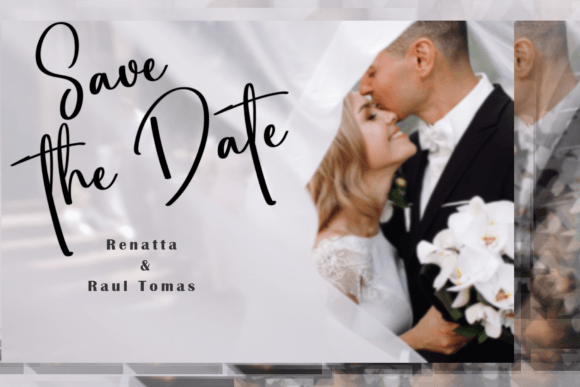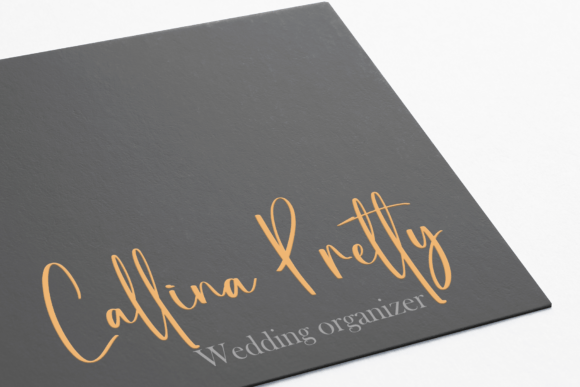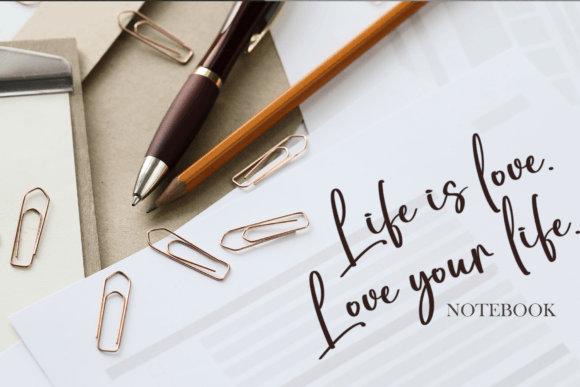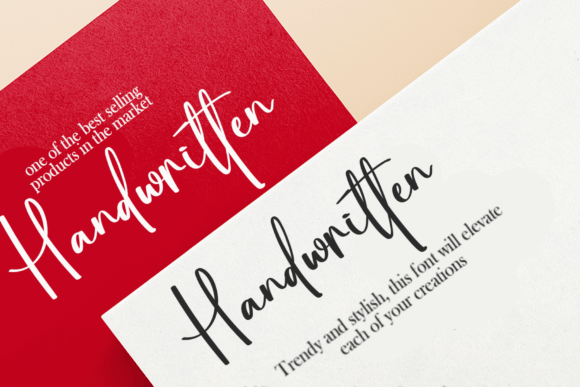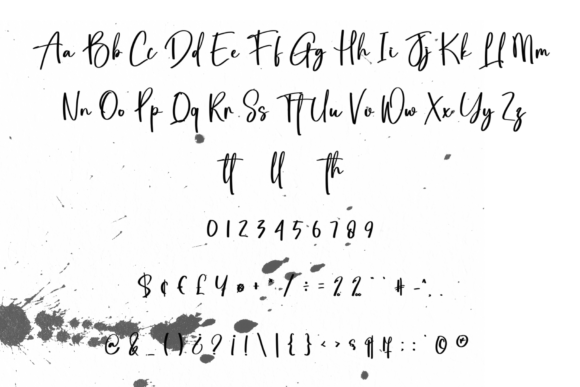
Introduction to Justified Font
As you sit down to create your next big design project, the blank page stares back at you, waiting for the spark that will set your imagination ablaze. And then it hits you – the perfect font that will elevate your vision and make it shine. For many designers, this is the moment when the Justified Font comes to mind.
This stylish handwritten font is more than just a pretty face; it’s a design resource that will add a touch of elegance and sophistication to your creative project. With its impeccable form and contemporary atmosphere, the Justified Font is the perfect choice for designers looking to add a personal touch to their work.
Key Features of Justified Font
- High-quality font design suitable for creative projects and design resources.
- Features a unique justified layout, perfect for creating visually appealing text arrangements.
- Designed to be highly legible, making it an ideal choice for both digital and print media.
Honest Review: Justified Font
I recently had the chance to work with the Justified Font for a creative project, and I must say, it’s been a game-changer. The free download was a huge plus, as it saved me time and resources.
What works well with this font is its versatility. It can be used for a wide range of design projects, from print materials to digital interfaces. The high-quality design is noticeable, even when used with a transparent background.
The font’s clean and modern aesthetic makes it perfect for modern designs. I’ve used it for headings, body text, and even as a standalone element in my designs. The results have been amazing every time.
- ✨ High-quality design that stands out in any project
- ✨ Versatile font that can be used for various design projects
- ⚠️ Limited font sizes, which can make it less suitable for very large or very small text
- ⚠️ Not ideal for projects that require a lot of font customization
Overall, I’m impressed with the Justified Font, and I would definitely recommend it to fellow designers. Its high-quality design and versatility make it an excellent addition to any design resource collection.
Tips for Getting the Most Out of Justified Font
For a high-quality design, use the Justified Font on a transparent background to create a clean and minimalist look. Experiment with different font sizes and colors to find the perfect combination for your project.
Common Use Cases for Justified Font
The Justified Font is ideal for creating titles, headings, and body text for various creative projects, such as brochures, posters, and social media graphics.
Q: Is the Justified Font suitable for high-quality printing?
Yes, the Justified Font is designed to be high-quality and suitable for printing. It’s a professional-grade font with precise letterforms and clear typography, making it perfect for business cards, brochures, or other print materials where high-quality typography is essential.